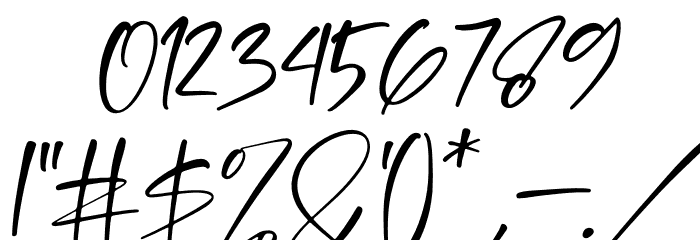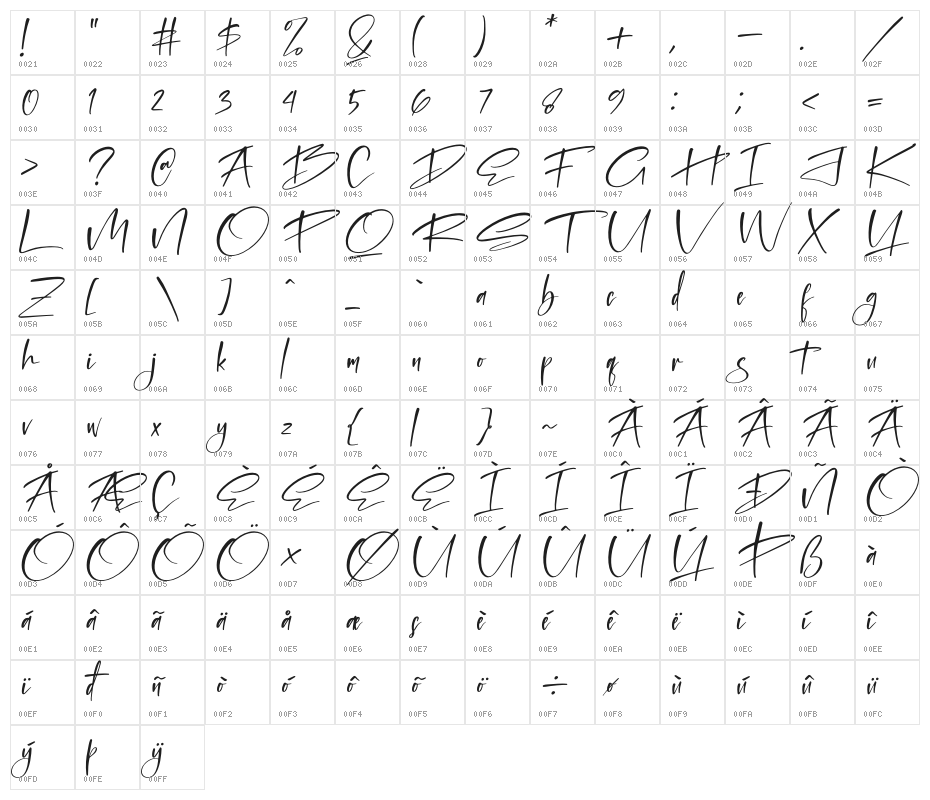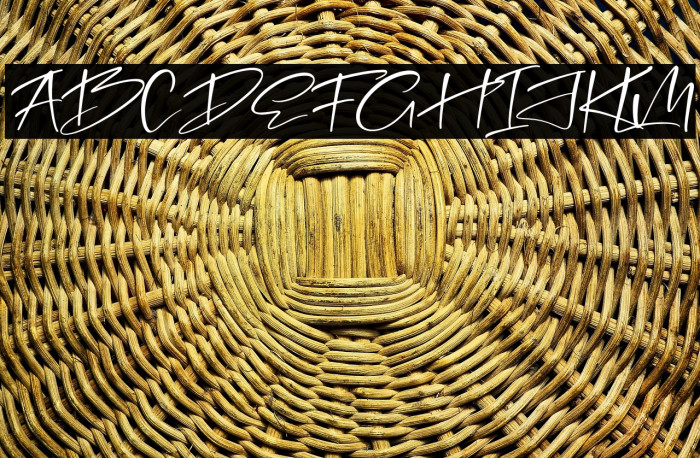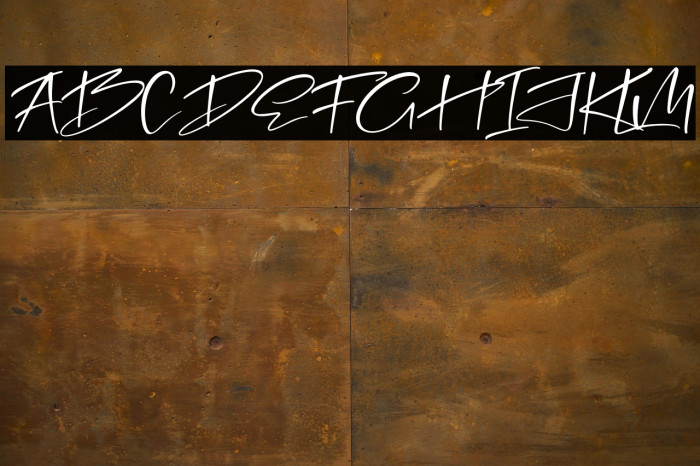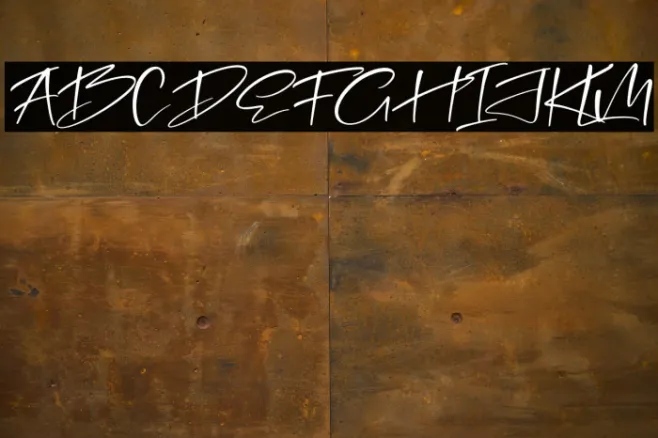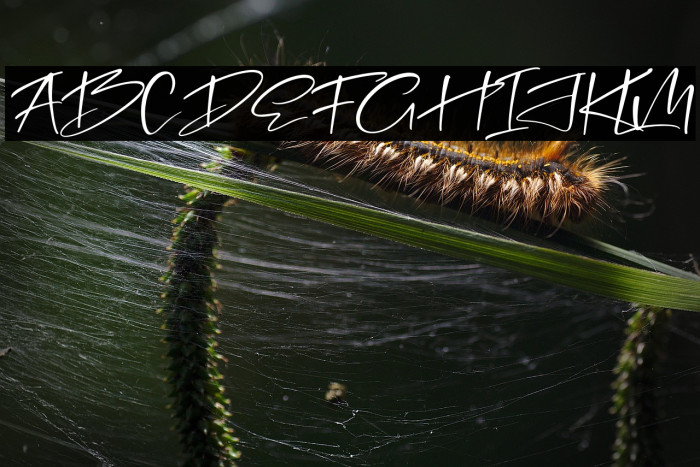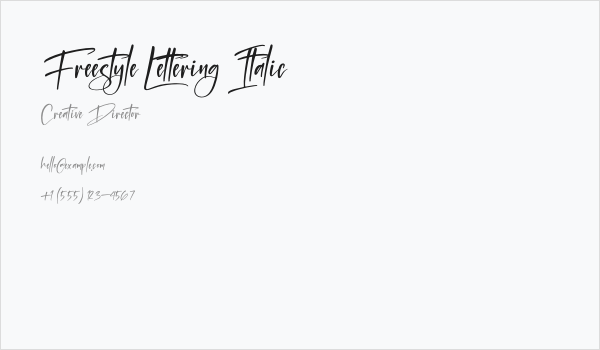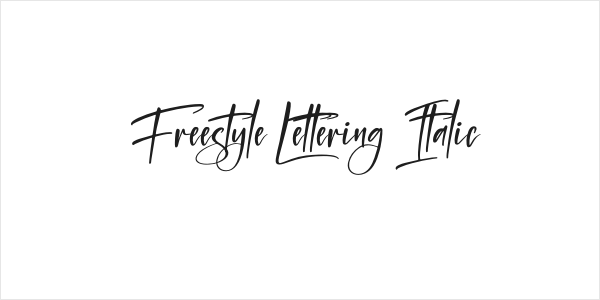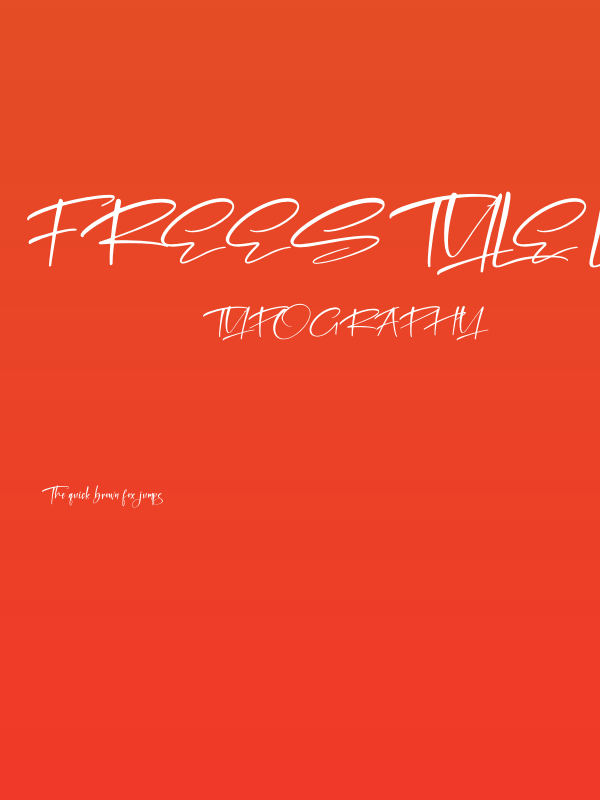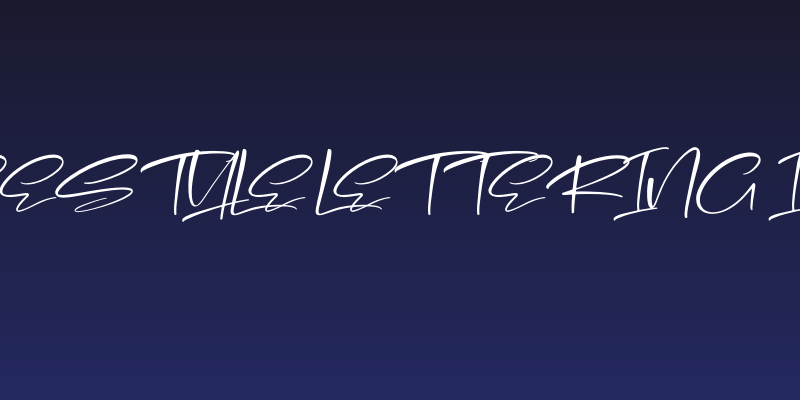
Freestyle Lettering Italic Font
Freestyle Lettering Italic Description
This font features a dynamic and expressive style, characterized by its fluid and cursive strokes. The letters are connected in a flowing manner, giving it a handwritten appearance. The uppercase letters are bold and slightly slanted, while the lowercase letters maintain a consistent rhythm with elegant loops and curves. The numerals and special characters complement the overall aesthetic, providing a cohesive look. This font exudes a sense of creativity and spontaneity, making it suitable for projects that require a personal touch.